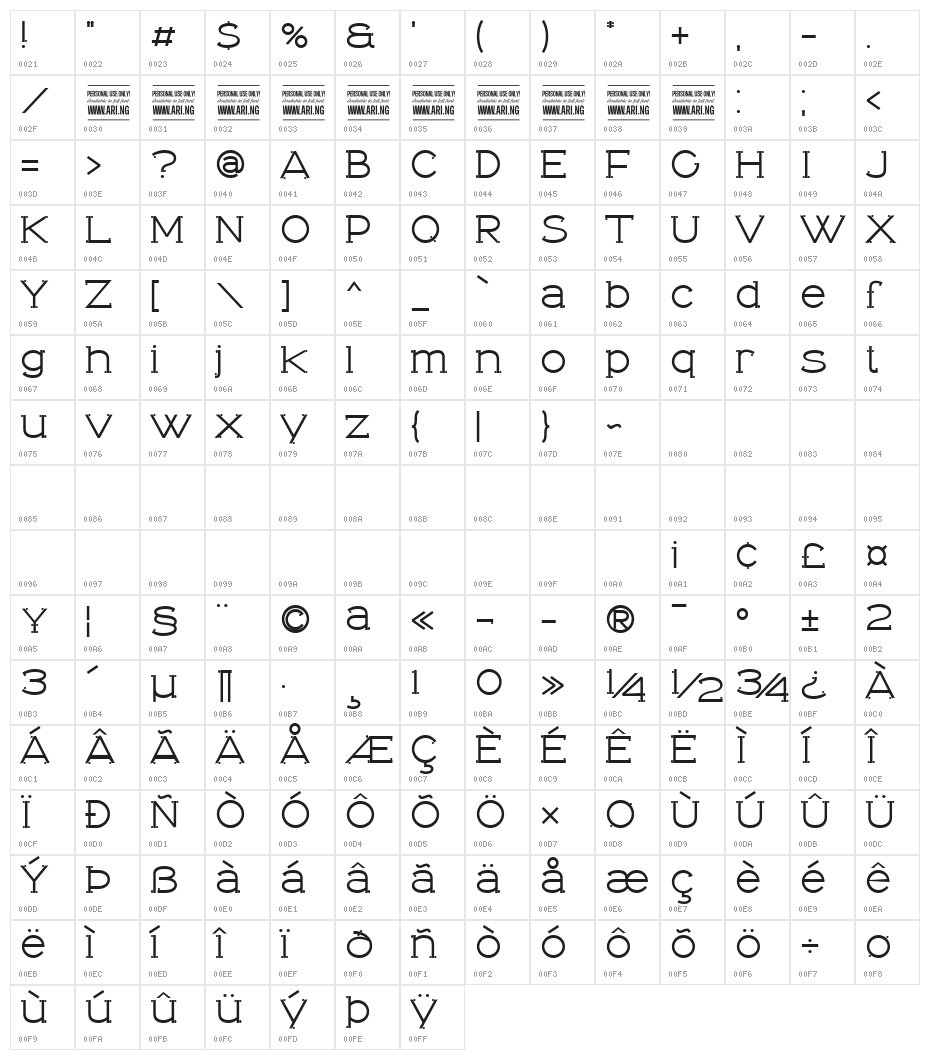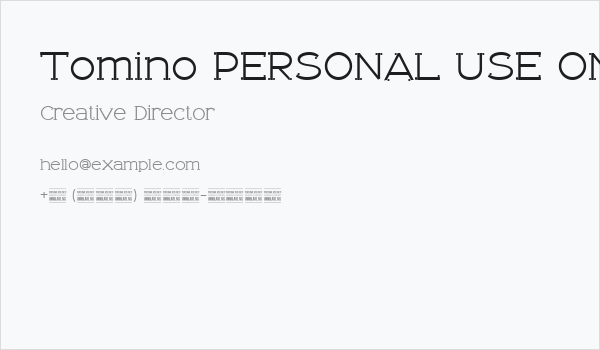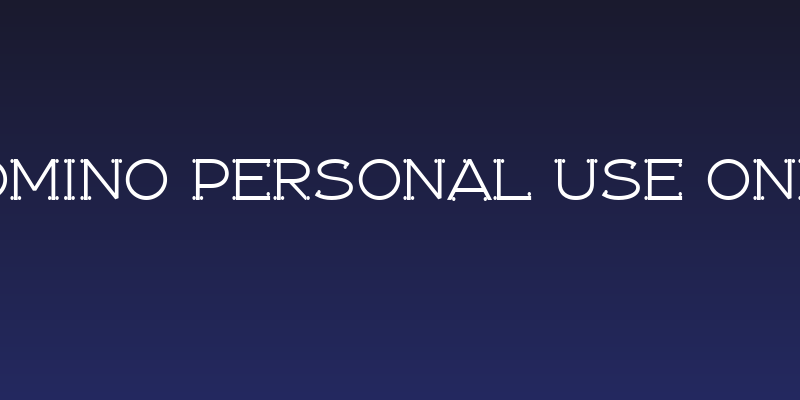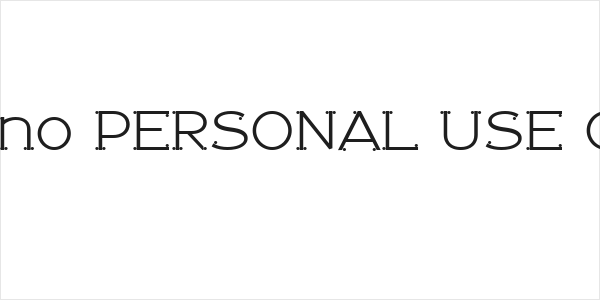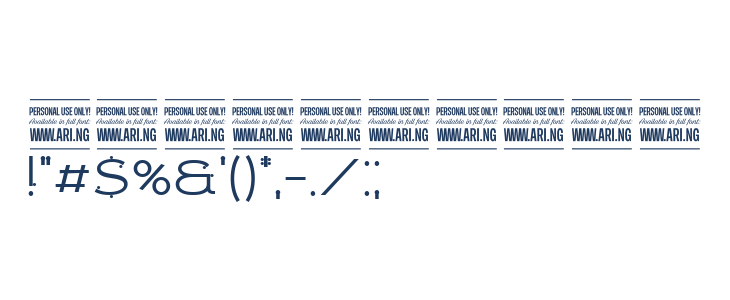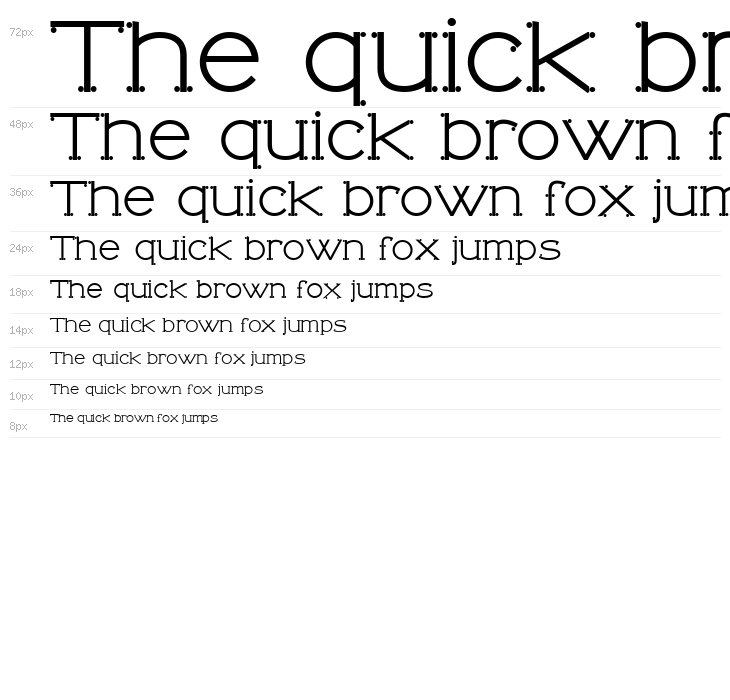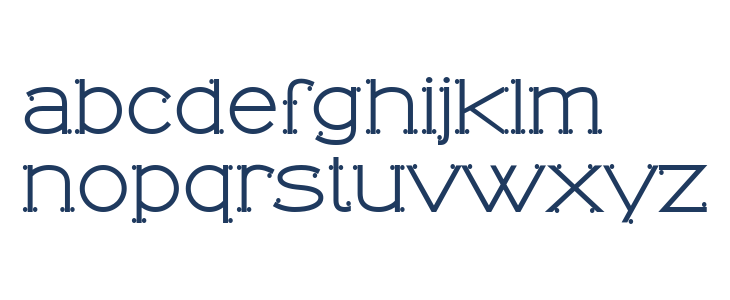
Tomino PERSONAL USE ONLY Font
Tomino PERSONAL USE ONLY Description
This font features a unique and playful design with circular dots accentuating the ends of each stroke, giving it a whimsical and decorative appearance. The characters are well-proportioned and maintain a consistent line weight throughout, creating a harmonious and balanced look. The uppercase and lowercase letters are distinct yet complementary, with a modern twist on traditional letterforms. The numerals and special characters follow the same stylistic cues, ensuring uniformity across all glyphs. This font's distinctive style makes it suitable for creative and artistic projects.